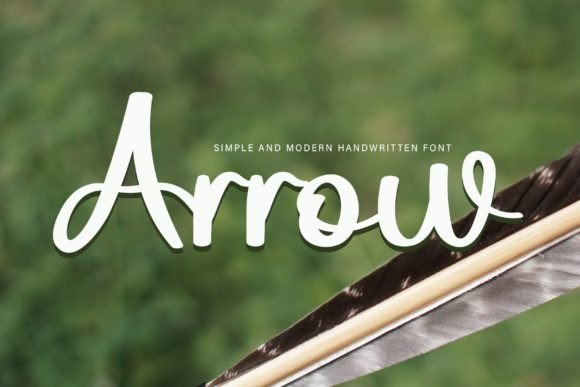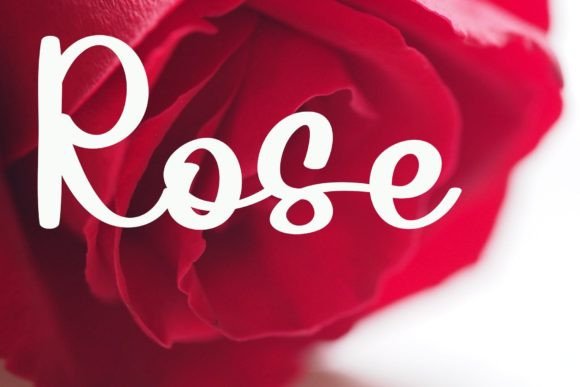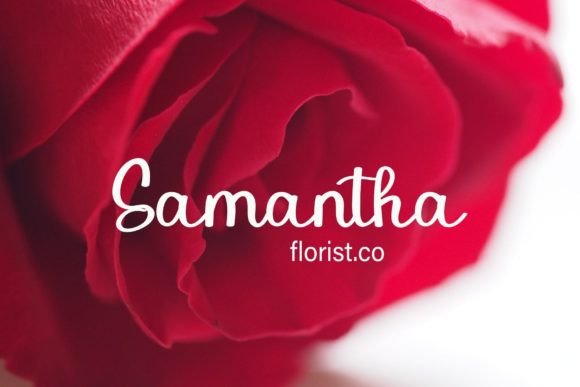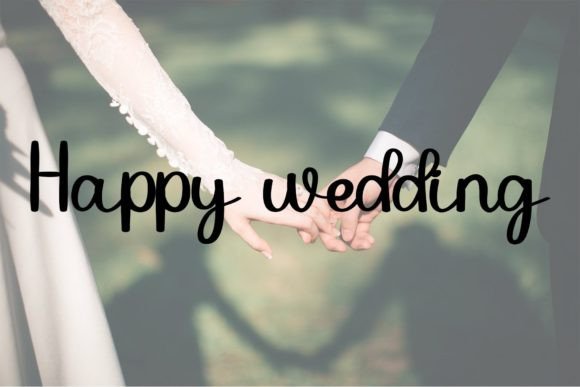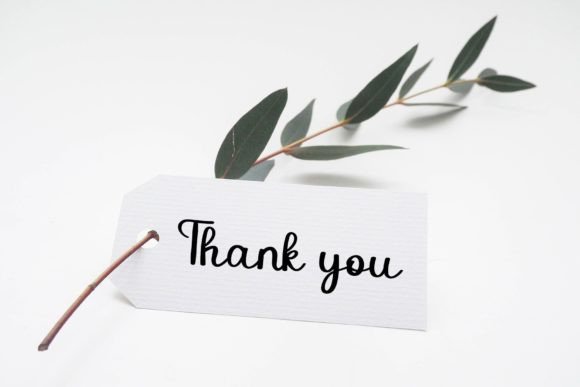
Arrow Font: Adding a Sweet Luxury Spark to Your Designs
Arrow is not just a font; it’s a delightful and beautiful handwritten typeface that brings a touch of sweetness and luxury to your design projects. With characters that dance gracefully along the baseline, Arrow is crafted to infuse elegance into every curve and stroke, making it the perfect choice to elevate the visual appeal of your creations.
The uniqueness of Arrow lies in its ability to convey a sense of sweetness and beauty through its handwritten style. The characters are not just static; they dance along the baseline, creating a dynamic and lively visual experience. This playful movement adds a charming quality to the font, making it suitable for a variety of design applications.
Whether you’re working on web design, prints, wedding invitations, or any other creative project, Arrow proves to be a versatile companion. It effortlessly adapts to different contexts, bringing a luxurious spark that enhances the overall aesthetic. The font’s handwritten charm makes it particularly well-suited for projects that require a personal and sophisticated touch.
Wedding invitations, in particular, find a perfect match in Arrow. The font’s sweet and graceful appearance adds a romantic flair, making it an excellent choice for creating invitations that reflect the special and joyous nature of the occasion. Arrow turns each letter into a brushstroke of elegance, contributing to the overall beauty of wedding suites.
Branding and logo design also benefit from the luxury touch of Arrow. The handwritten style communicates a sense of authenticity and uniqueness, qualities that are often sought after in creating a memorable brand identity. The font’s ability to add a spark of luxury ensures that your designs stand out and leave a lasting impression.
As you incorporate Arrow into your design projects, you’ll discover its power to transform the ordinary into something extraordinary. The font is not just a tool for communication; it’s a design element that enhances the emotional impact of your creations. Whether you’re crafting greeting cards, quotes, or social media graphics, Arrow brings a sweet and beautiful touch to every letter.
In conclusion, Arrow is a font that goes beyond mere letters on a page. It’s a design asset that adds a touch of luxury and sweetness to your creative toolkit. Allow Arrow to dance through your designs, bringing a sense of elegance and charm that elevates your projects to new heights. Embrace the beauty of handwritten typography with Arrow and let your creativity sparkle with each stroke.